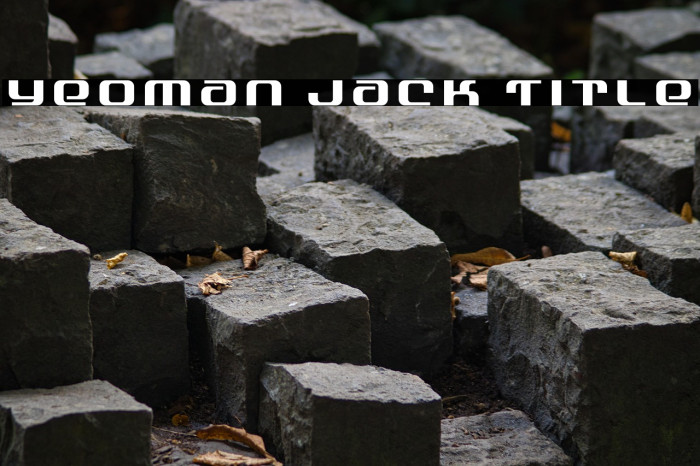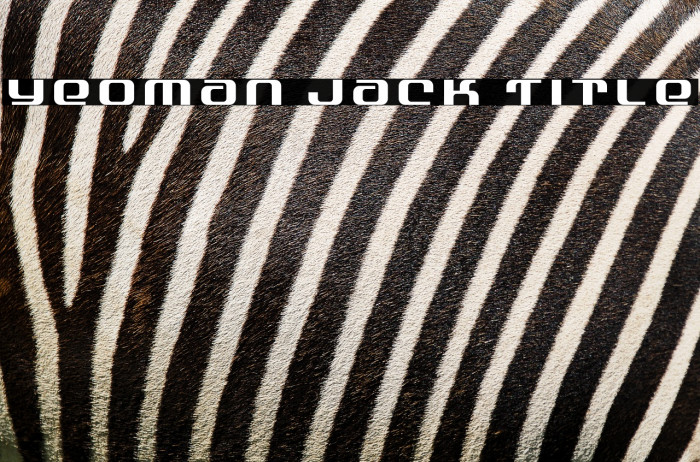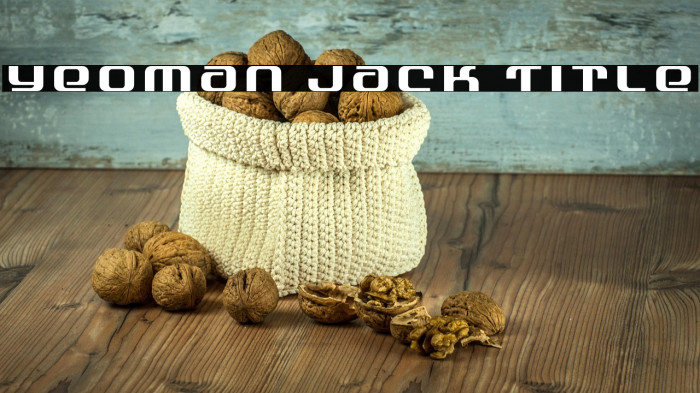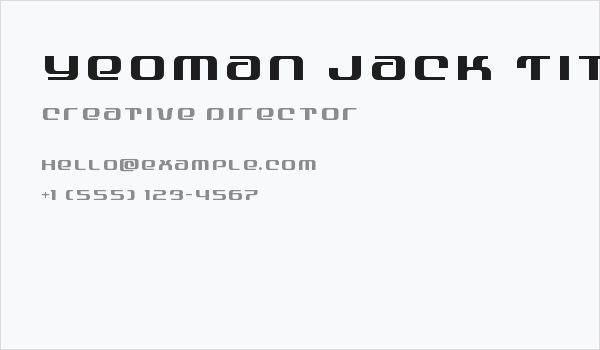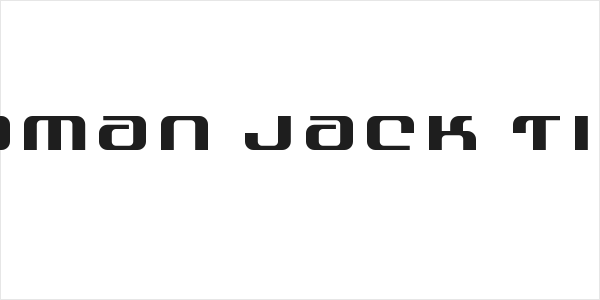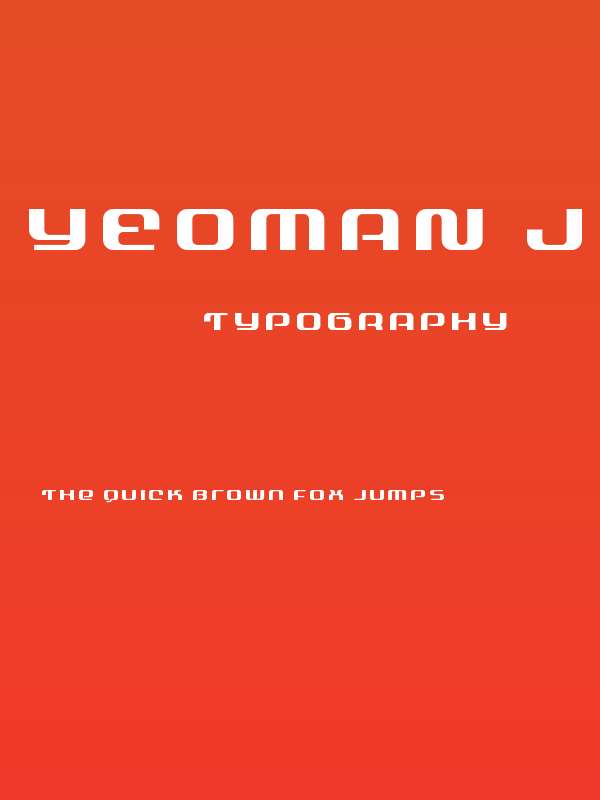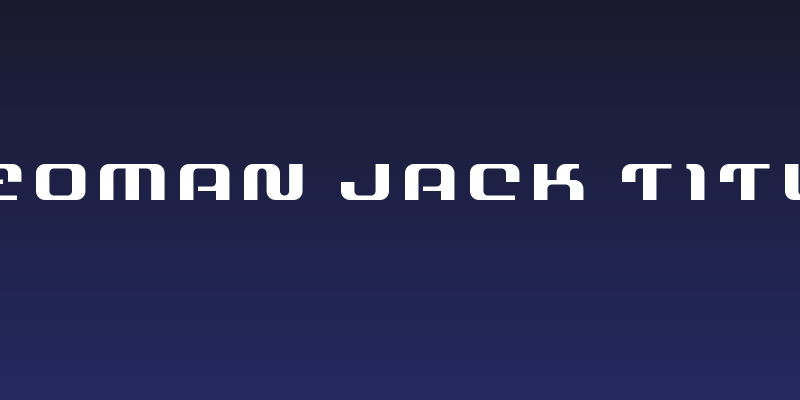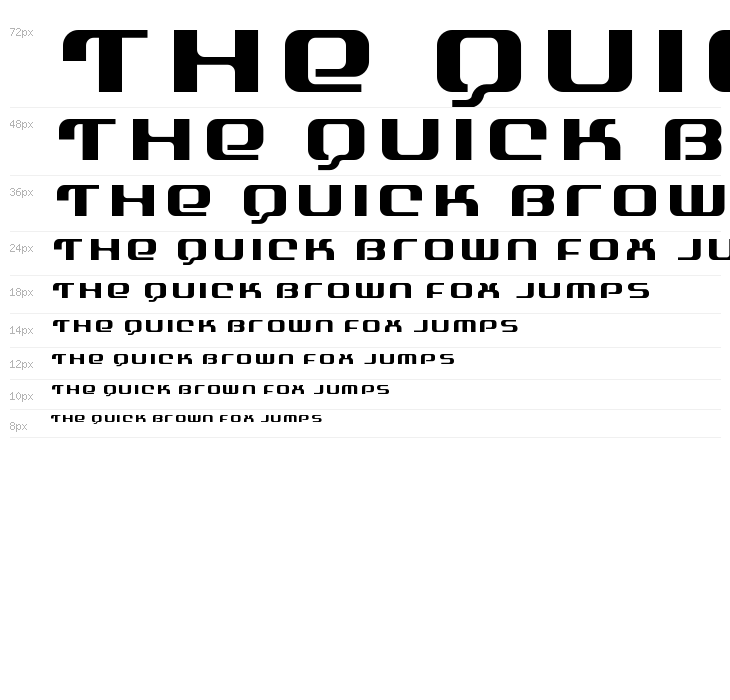
Yeoman Jack Title Font
Yeoman Jack Title Description
This font features a bold and modern design with a futuristic appeal. The characters are constructed with a geometric precision, showcasing a blend of straight lines and subtle curves. The uppercase and lowercase letters maintain a consistent height, giving the font a uniform appearance. The numerals are distinct and easily readable, while the special characters add a unique flair to the overall style. The font's design is both functional and visually striking, making it suitable for a variety of creative applications.
| Proposed Projects | Ideal for technology branding, sci-fi posters, video game titles, and modern advertising. |